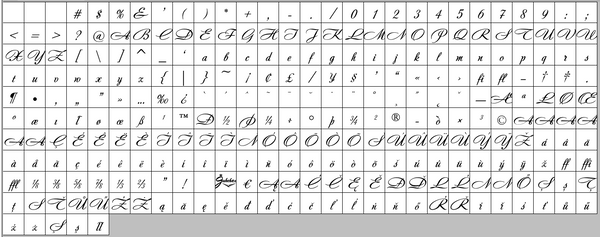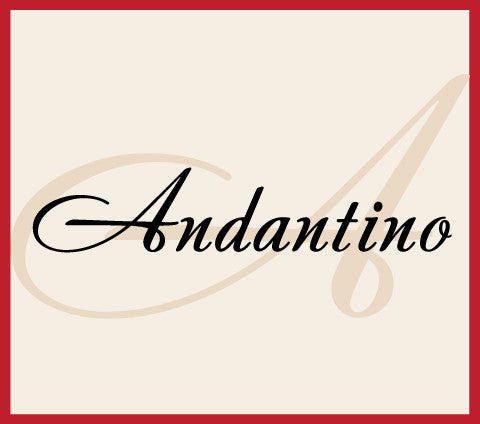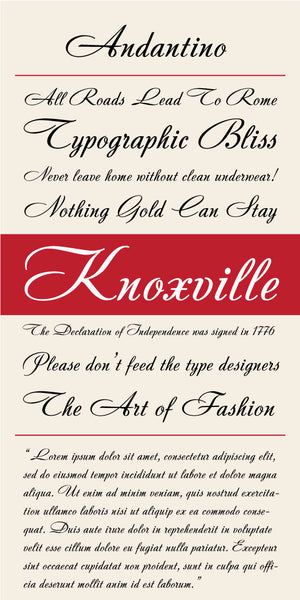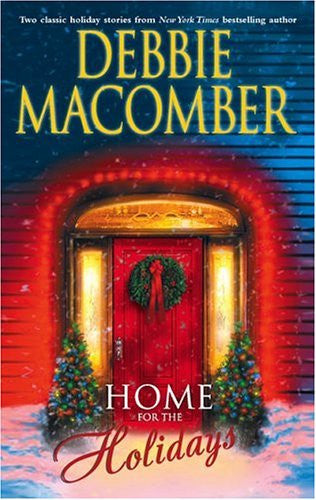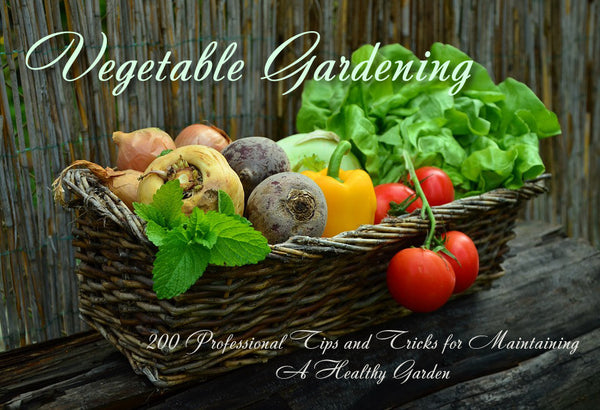
Andantino
Andantino is an elegant script font that has a more structured feel to the design. The lowercase letters are a perfect cross between script and serif letterforms, lending Andantino a refined look. The typeface is a digital revival of an old photo-typositing face from the 1950s. Perfect for any occasion that needs a touch of class. Andantino is a musical term that means "at a medium light-hearted tempo".
Notable Use: Andantino has been used on book covers for novels by Debbie Macomber.